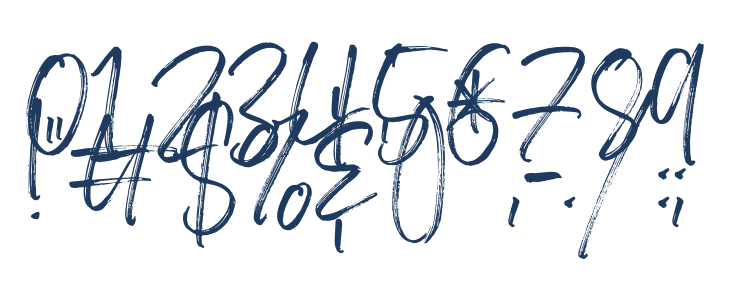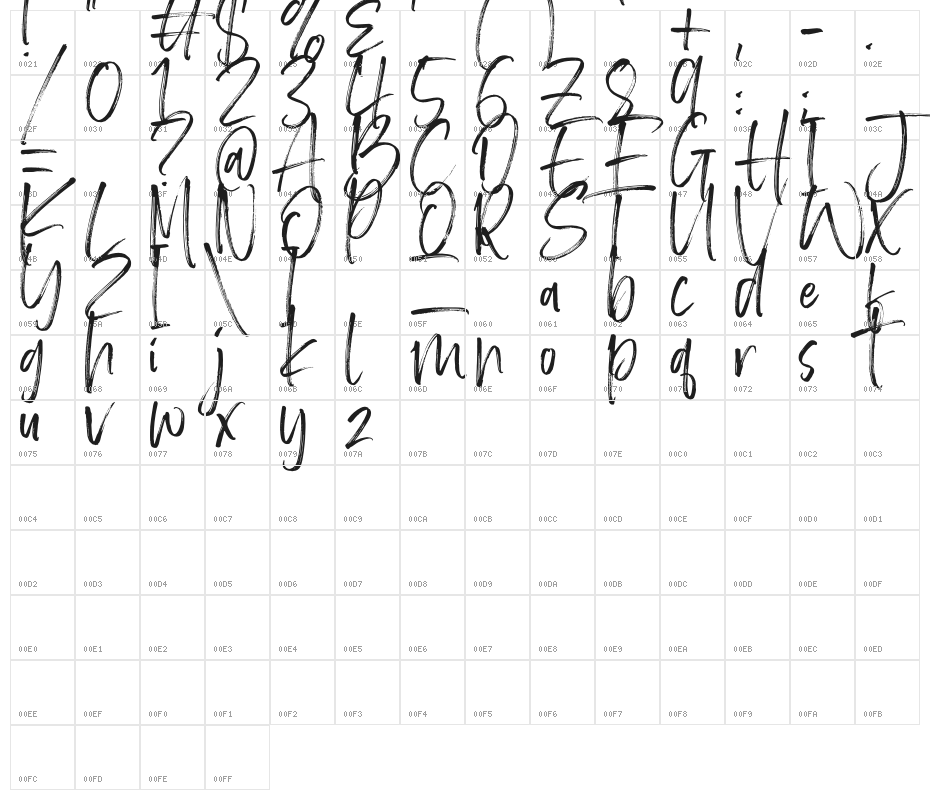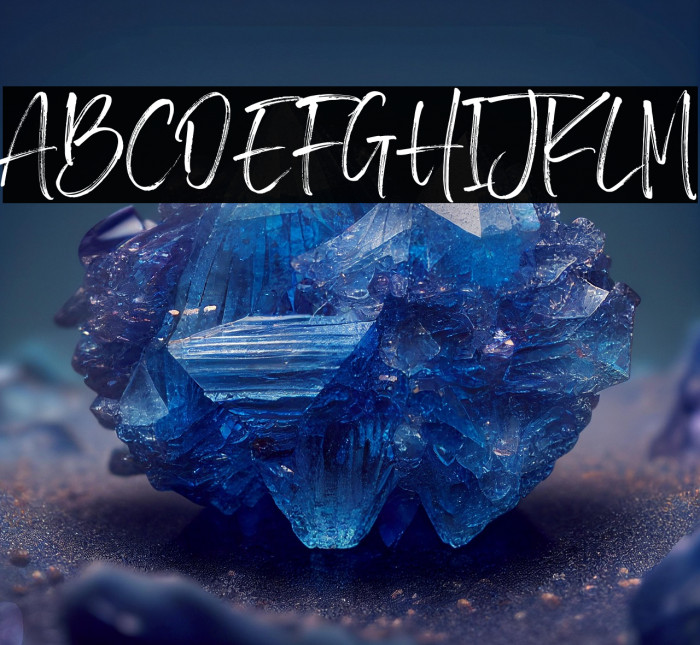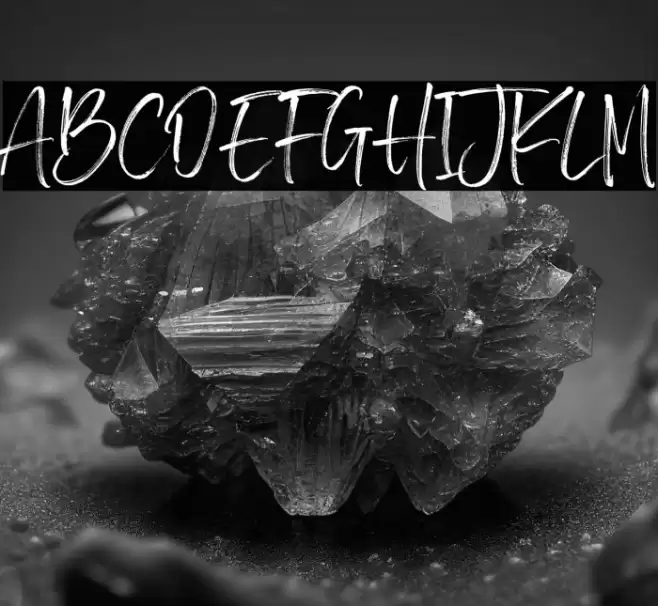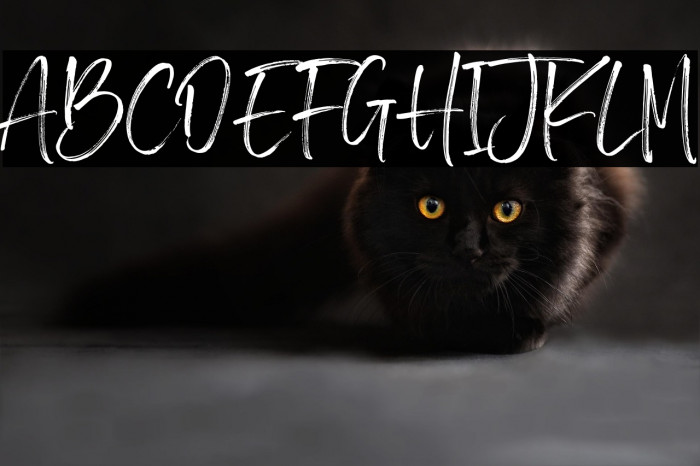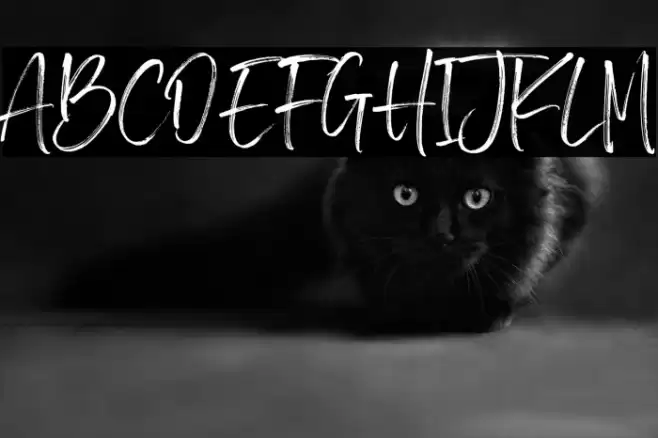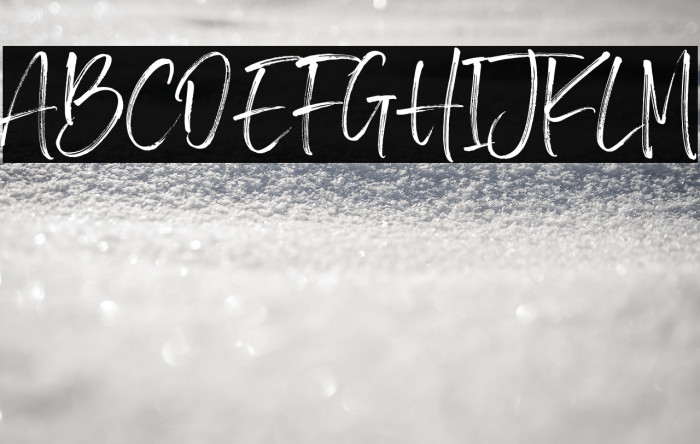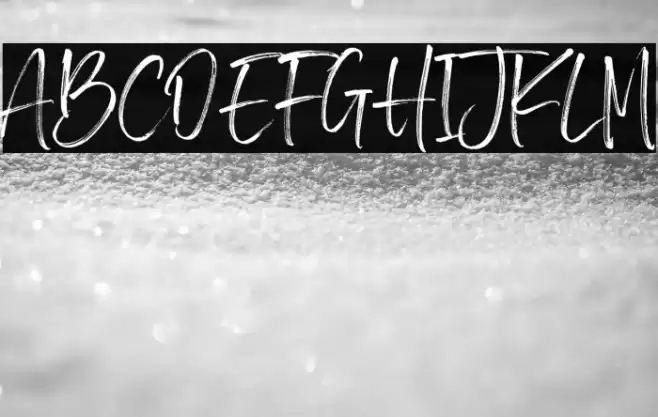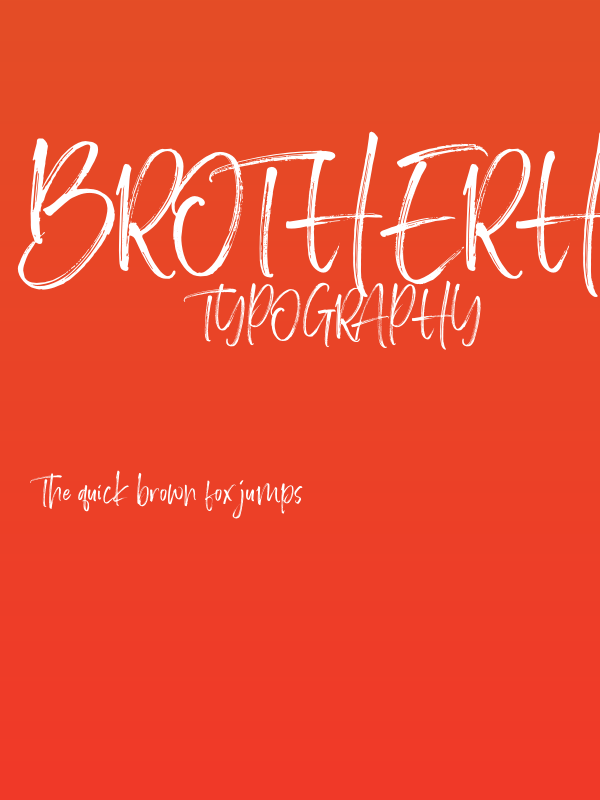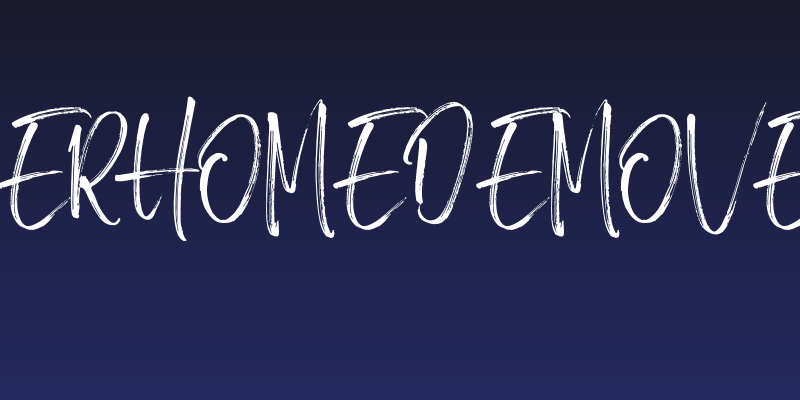
BrotherHomeDemoVersion Font
BrotherHomeDemoVersion Description
This font features a dynamic and expressive handwritten style, characterized by bold, sweeping strokes and a slightly irregular baseline that adds to its energetic feel. The uppercase letters are tall and commanding, while the lowercase letters maintain a consistent flow, enhancing readability despite their artistic flair. Numbers and special characters are crafted with the same bold strokes, ensuring uniformity across all characters. The brush-like texture gives it a raw, authentic appearance, making it ideal for projects that require a personal touch.
| Proposed Projects | Ideal for branding, posters, invitations, and any design needing a personal, artistic touch. |